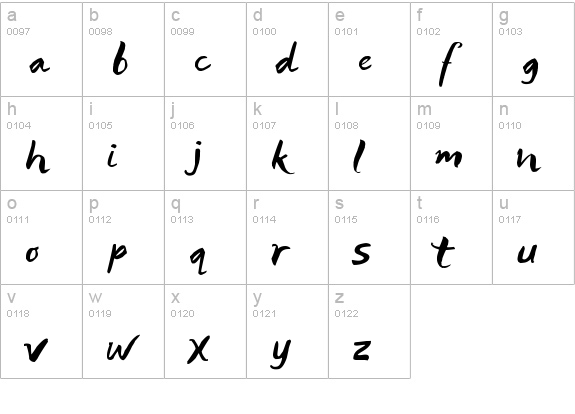
Lifelogo Hard Font Details
Introducing Lifelogo Hard, a powerful and versatile font that embodies strength and durability. With its bold and rugged design, Lifelogo Hard is perfect for projects that require a strong visual impact. Whether you're designing a logo for a sports team, creating eye-catching headlines, or crafting a poster that demands attention, this font is sure to make a lasting impression. Lifelogo Hard is not only visually striking, but it also offers a seamless reading experience. Its carefully crafted letterforms ensure legibility, even at smaller sizes, making it ideal for a wide range of applications. From print materials to digital designs, Lifelogo Hard brings a sense of boldness and character to any project. And the best part? Lifelogo Hard is available for free download at FontsMarket.com. That's right - you can now access this incredible font without spending a dime. FontsMarket.com is a trusted source for high-quality fonts, and with Lifelogo Hard's inclusion in their collection, you know you're getting a font that is both reliable and visually stunning. So why wait? Elevate your designs with Lifelogo Hard and unleash the power of this remarkable font. Download it for free today at FontsMarket.com and see your projects come to life with style and impact.